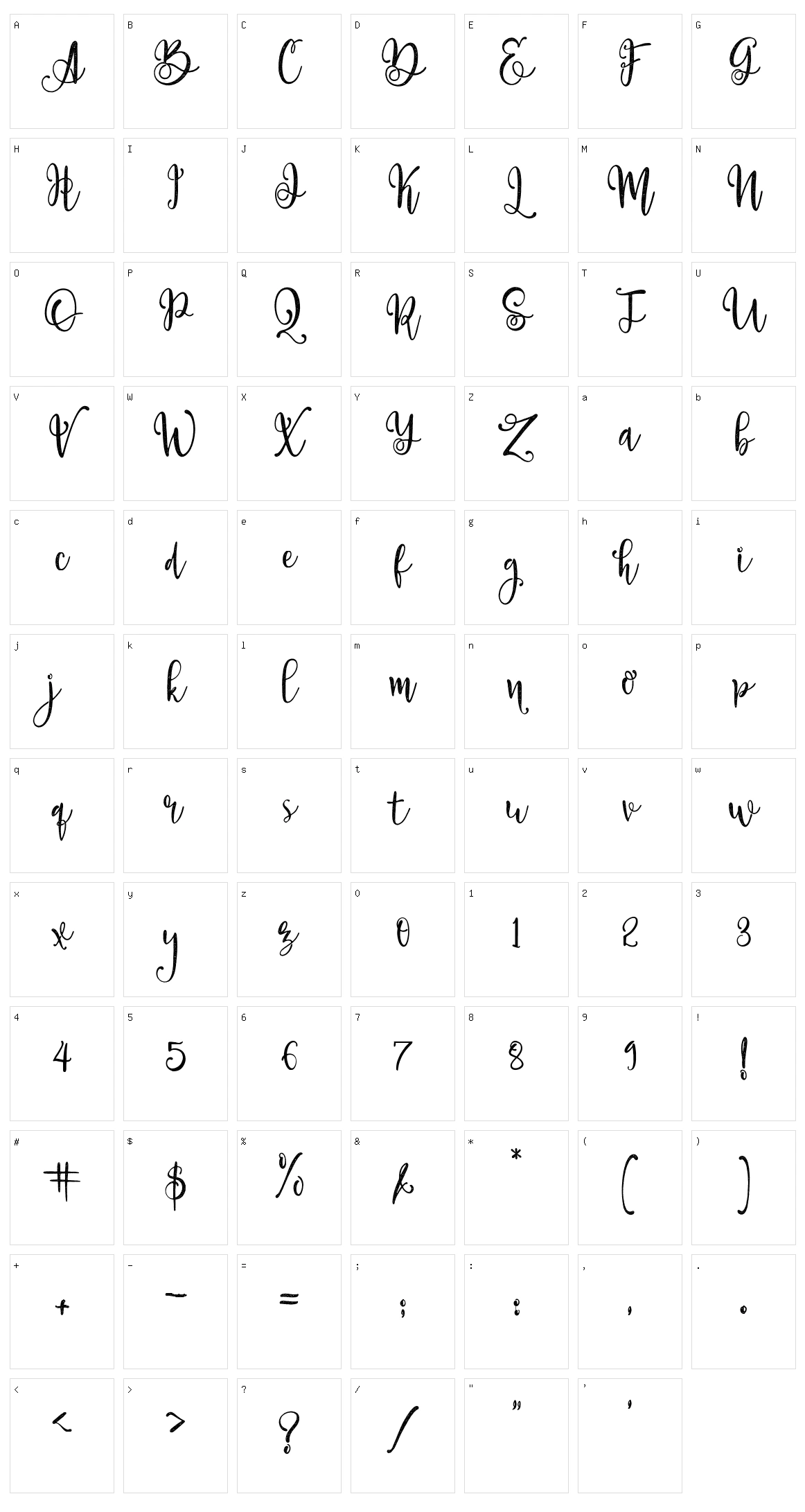
Paradiso is a an original type to recognize.
It comes in two versions; Paradiso Vintage and Paradiso. The font contains contextual alternates supports multilingual languages, ligatures and PUA Encoded.
Paradiso Vintage created by Eric Kurniawan & I Made Miada, Paradiso works great in logotypes and slogans.
Use it as the go-to font for your business' titles.